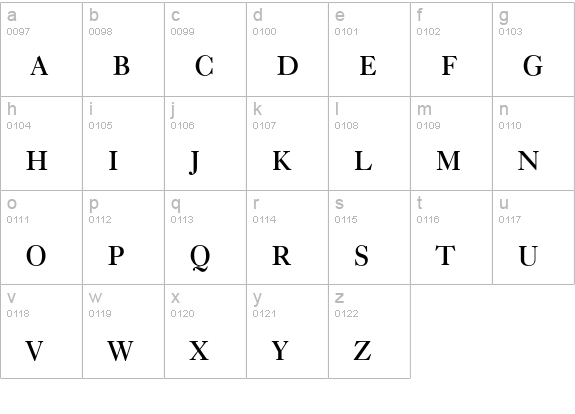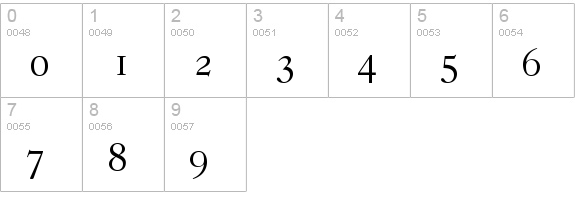
Caslon 540 Roman Small Caps & Oldstyle Figures Font Details
Caslon 540 Roman Small Caps & Oldstyle Figures font exudes elegance and sophistication with its classic design and timeless appeal. The small caps add a touch of formality, while the oldstyle figures provide a sense of tradition and character. This versatile typeface is perfect for a wide range of projects, from formal invitations to editorial designs. Best of all, Caslon 540 Roman Small Caps & Oldstyle Figures font is available for free download at FontsMarket.com. Now you can add a touch of vintage charm to your designs without breaking the bank. Whether you're working on a branding project or creating a stunning typographic poster, this font is sure to elevate your work to the next level. Download it today and bring a touch of classic elegance to your projects.